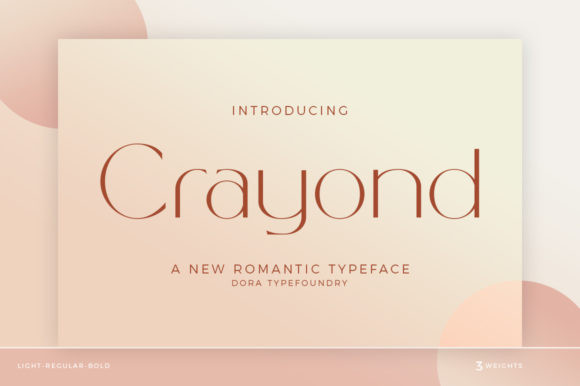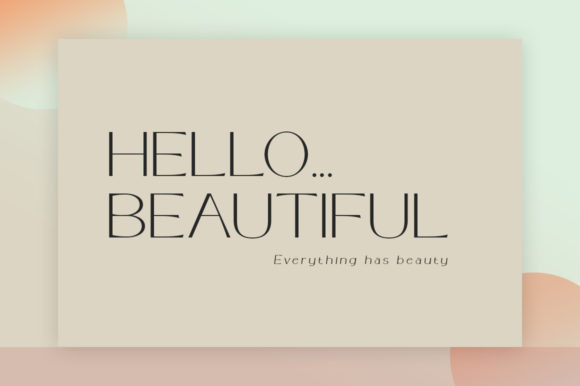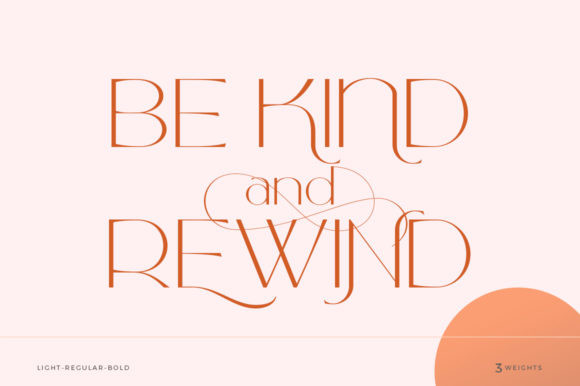
Crayond Font
Crayond is a romantic, delicate and round lettered sans serif font. Fall in love with its unique and elegant style and create lovely designs!